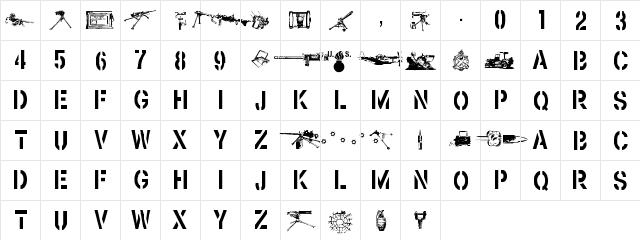
Browning Regular
Design Context for Browning Typeface
Browning takes a measured approach to typography — its balanced proportions and neutral character make it a reliable workhorse for both digital and print work.